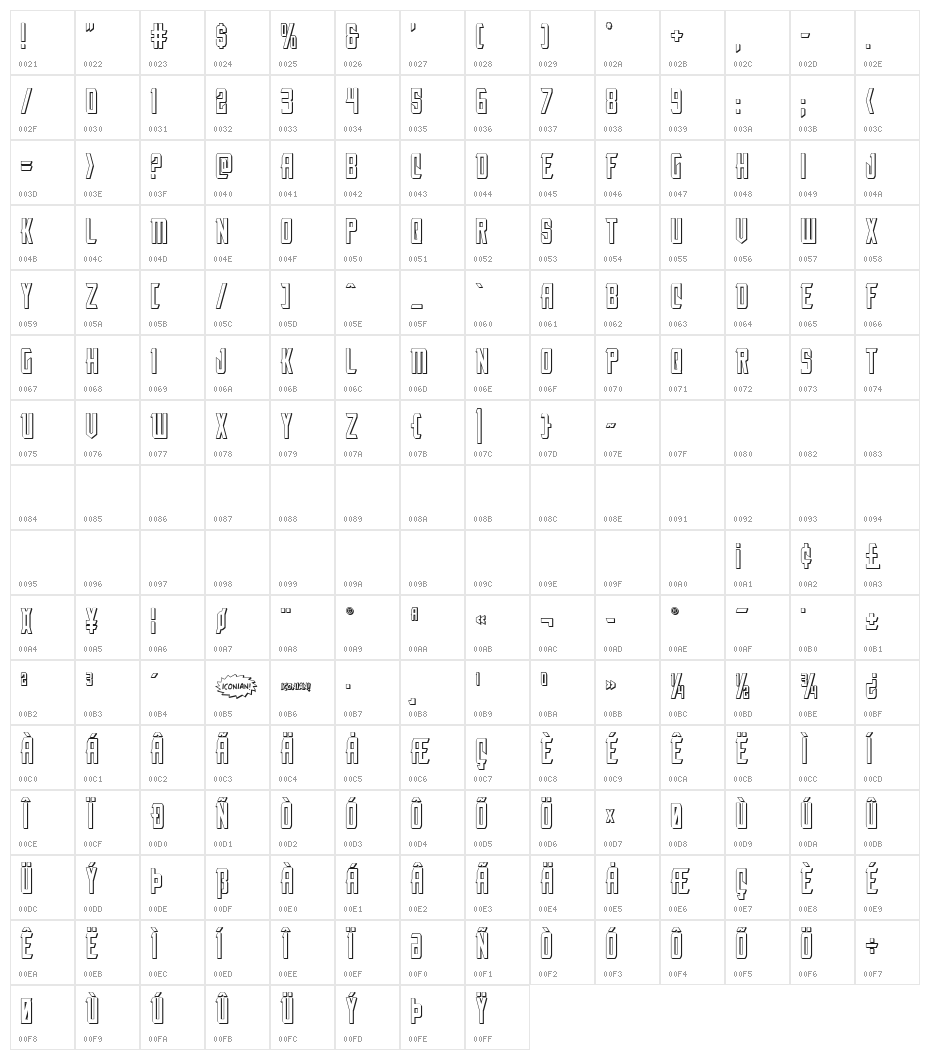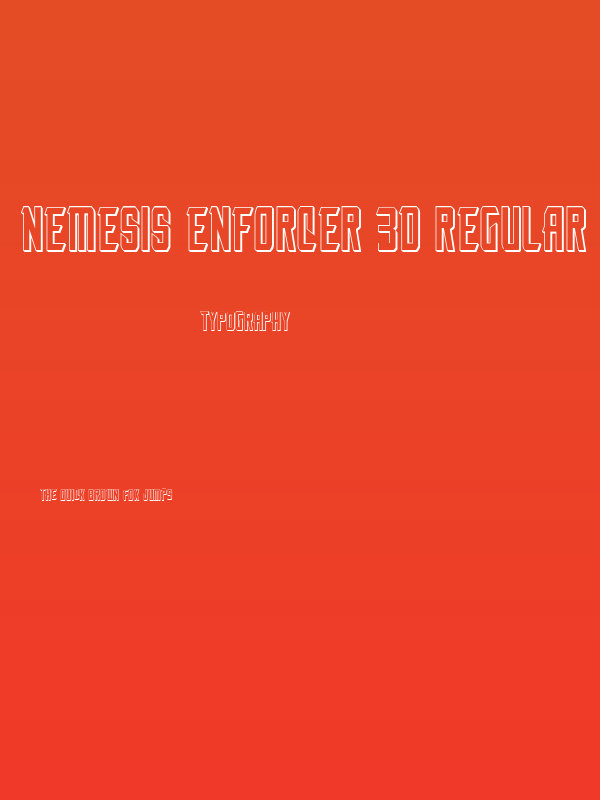
Nemesis Enforcer 3D Regular Font
Nemesis Enforcer 3D Regular Description
This font features a bold, geometric design with a 3D effect, giving it a striking and modern appearance. The characters are outlined with a thick border, creating a sense of depth and dimension. The uppercase letters are angular and sharp, with a futuristic style that stands out. The numbers and special characters maintain the same bold and structured look, ensuring consistency across all elements. This font is ideal for projects that require a strong visual impact and a contemporary feel.
| Proposed Projects | Ideal for posters, video game titles, branding, and any project needing a modern, eye-catching font. |